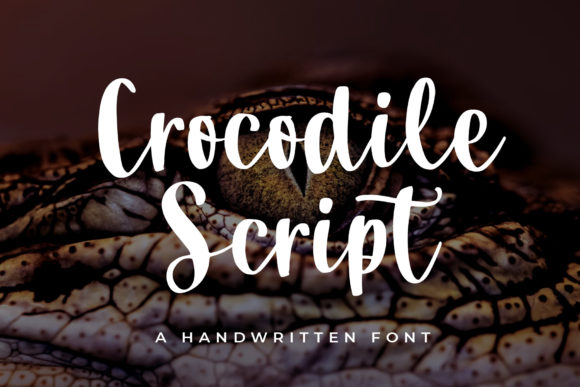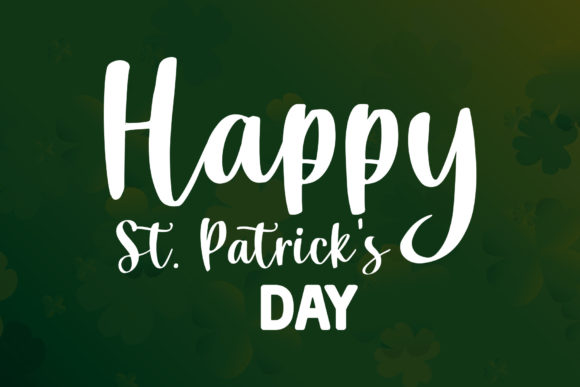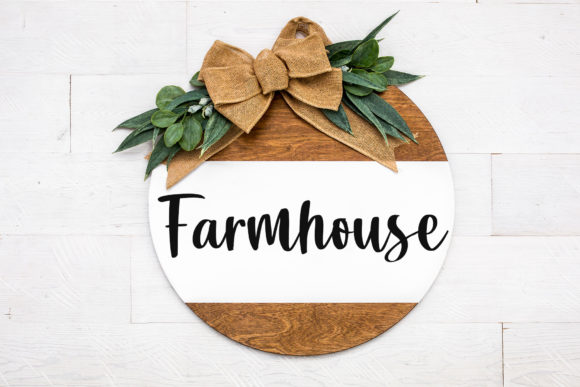
About Crocodile Script Font
Crocodile Script is a delicate, elegant and flowing handwritten font. It has beautiful and well balanced characters and as a result, it matches a wide pool of designs. Add it to your most creative ideas and notice how it makes them come alive!